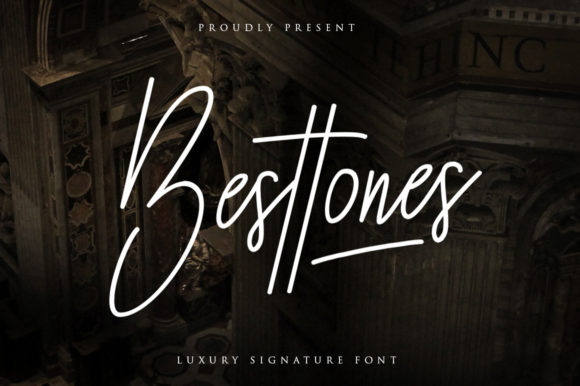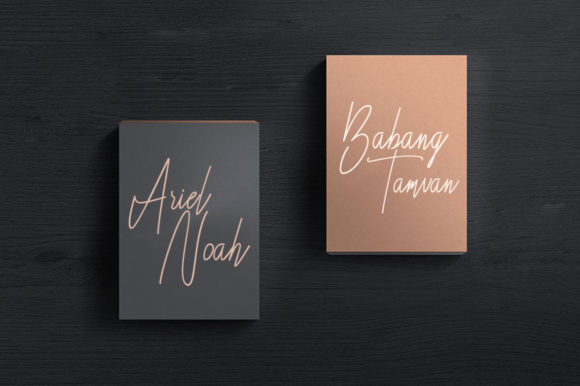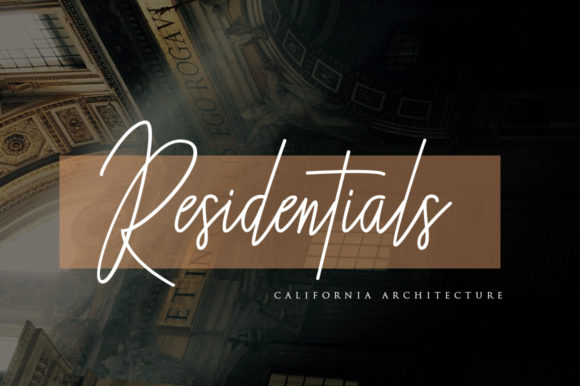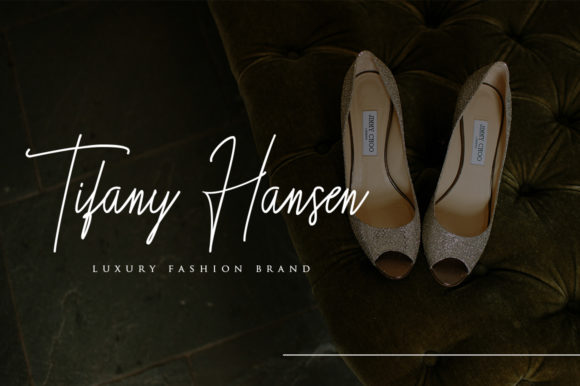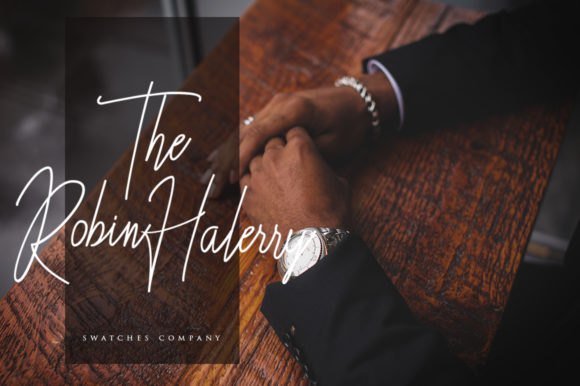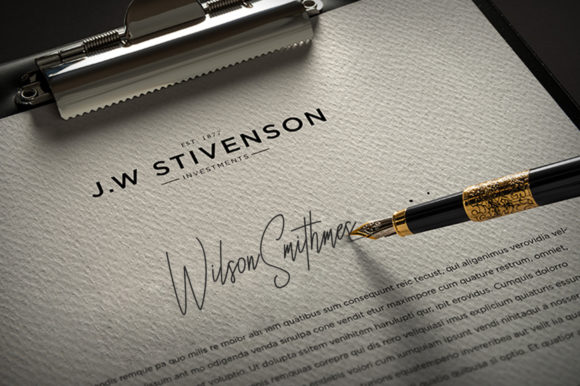
Besttones Font
About Besttones Font
The Besttones is a luxurious signature font. It was inspired by stylish handwriting and is perfect for logos, branding, invitations, stationary, wedding designs, and much more!